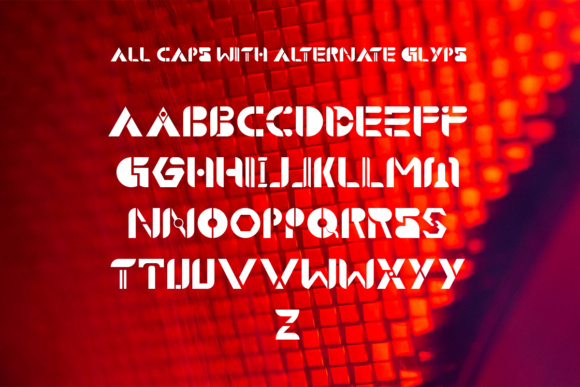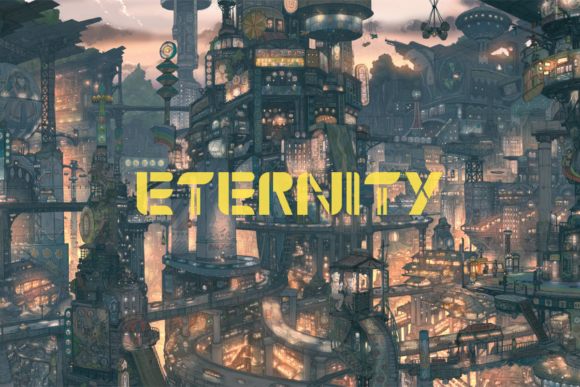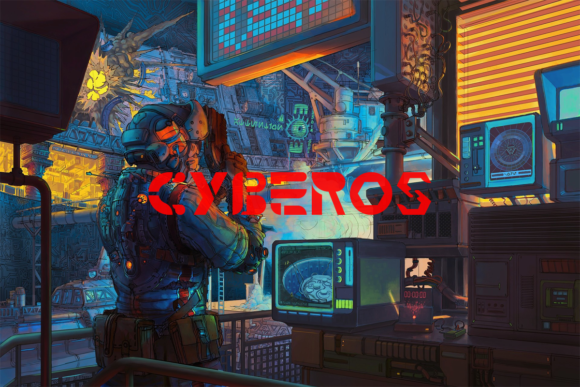
Introducing Demachina Font: The Ultimate Futuristic Display Font
In the world of typography, fonts play a crucial role in conveying the tone and aesthetic of a brand, product, or project. For designers and crafters looking to add a touch of futurism to their work, Demachina Font is an excellent choice. This modern and futuristic display font is designed to make a statement, and its unique style makes it perfect for a wide range of applications, from logos and games to book covers and more.
What Makes Demachina Font Stand Out?
Demachina Font boasts a distinctive style that sets it apart from other fonts in the display category. Its futuristic look is characterized by clean lines, sharp edges, and a sense of sleekness that gives it a cutting-edge feel. This font is not just a collection of characters; it’s a design statement that can elevate any project to new heights.
Key Features of Demachina Font
- Modern and Futuristic: Demachina Font is designed with the future in mind. Its modern aesthetic makes it perfect for projects that require a forward-thinking look.
- Unique Style: The font’s unique style ensures that your project stands out from the crowd. Whether it’s a logo, a book cover, or a game, Demachina Font adds a touch of originality.
- Versatile: This font is incredibly versatile and can be used across various mediums, including digital platforms, print materials, and more.
- Easy to Read: Despite its futuristic look, Demachina Font remains clear and easy to read, making it functional as well as stylish.
Uses of Demachina Font
The possibilities are endless with Demachina Font. Here are some of the top use cases for this versatile font:
- Logo Design: Create a lasting impression with a logo that stands out. Demachina Font’s unique style makes it perfect for branding and identity projects.
- Game Design: Add a futuristic touch to your game with titles, subtitles, and in-game text that capture the imagination.
- Book Covers: Make your book cover pop with a title that looks like it belongs in a sci-fi movie. Demachina Font is ideal for book covers that need a modern edge.
- Marketing Materials: From brochures to posters, Demachina Font can add a touch of sophistication and futurism to any marketing material.
Tips for Using Demachina Font
To get the most out of Demachina Font, consider the following tips:
- Pair it with Simplicity: Let Demachina Font be the star of the show by pairing it with simpler fonts for body text.
- Experiment with Colors: The futuristic look of Demachina Font lends itself well to bold and bright colors. Don’t be afraid to experiment.
- Consider Size: Due to its unique design, Demachina Font can make a big impact even at smaller sizes. However, for maximum effect, consider using it in larger sizes for headings and titles.
Demachina Font is more than just a font; it’s a design tool that can transform your projects with its modern and futuristic aesthetic. Whether you’re a designer working on a client’s project or a crafter looking to add a professional touch to your work, Demachina Font is an excellent choice. Its versatility, unique style, and ease of use make it a valuable addition to any designer’s toolkit. So, why wait? Dive into the world of futuristic typography with Demachina Font and take your designs to the next level.